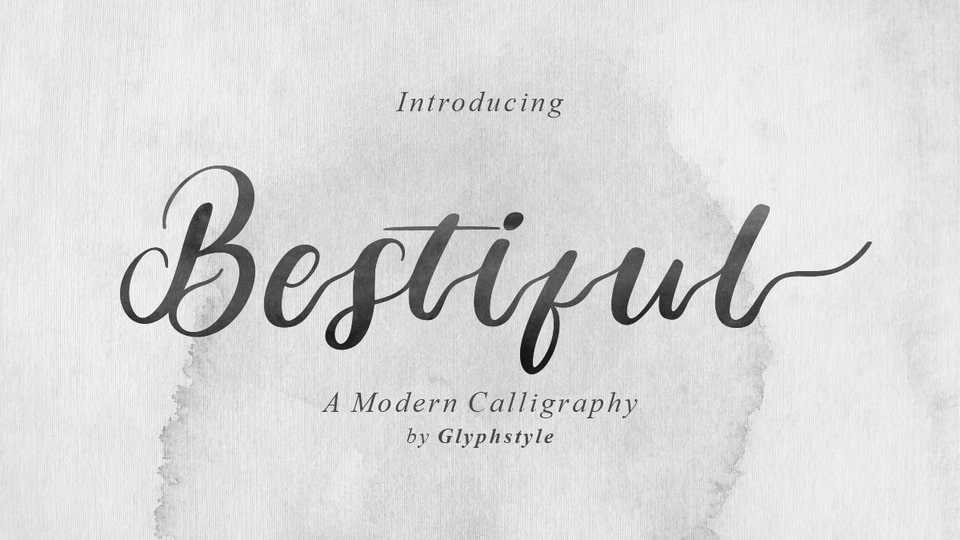
Download Bestiful Modern font, a script with a modern calligraphy style and free form, has a curly end, not found in other fonts. Charming and beautiful font.